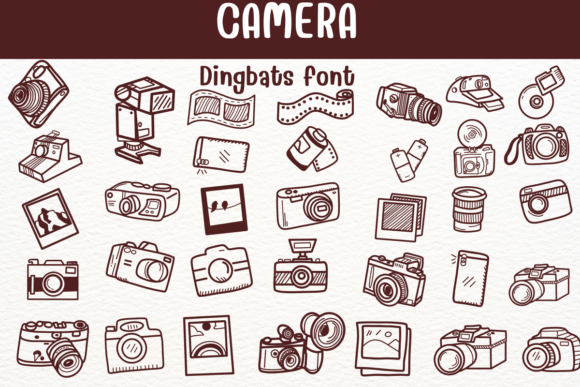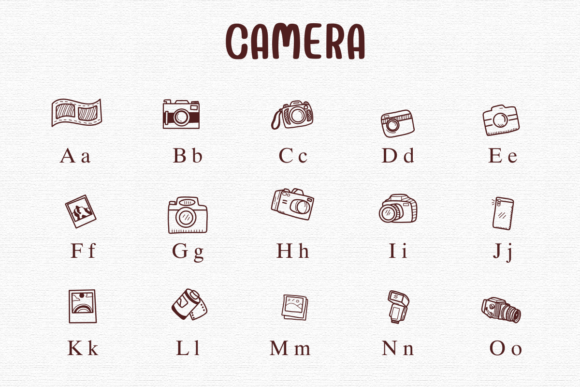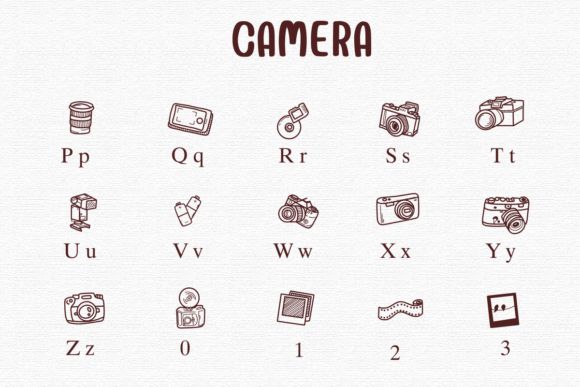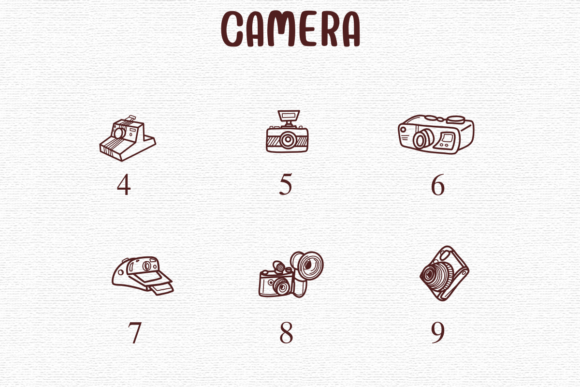
Camera Font
About the Camera Font
Get ready to be inspired by Camera Font, a fresh and dynamic typeface for modern creators. Camera is a fun and detailed dingbats font full of camera illustrations—everything from vintage film gear to modern smartphones and accessories. It’s perfect for photography logos, scrapbooking, memory books, and creative branding for camera lovers.
Camera Font’s playful nature makes it ideal for projects needing a lighthearted touch, such as children’s books, social media graphics, or quirky branding for photography-related businesses. It’s less suitable for large blocks of text or formal documents; its detailed illustrations are best used sparingly as accents.
Pairing Camera Font with a clean sans-serif like Open Sans for body text creates a balanced design. For a more vintage feel, consider a serif like Garamond. If a modern aesthetic is desired, a geometric sans-serif such as Futura would complement its illustrative style.
The font exudes a friendly, nostalgic energy, making it perfect for brands that want to convey a sense of fun and approachability. Avoid using it for projects requiring sophistication or a highly professional image.
Camera Font Usage Examples
Camera Font Example